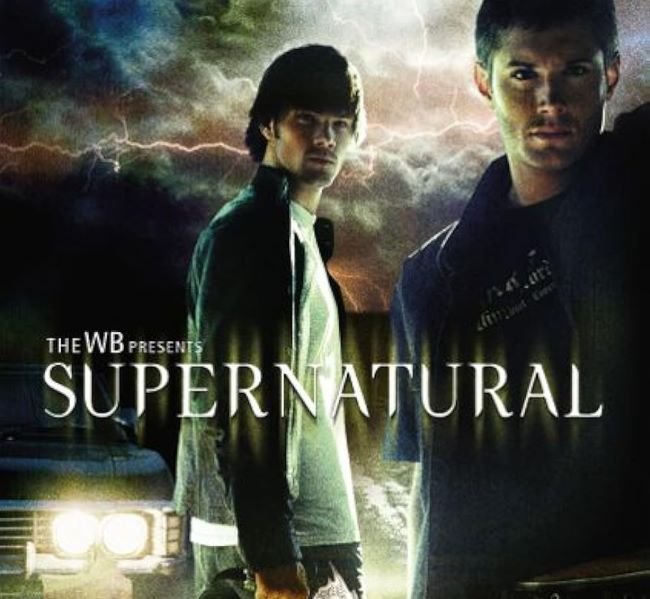
Supernatural Font
Supernatural font has outlasted fifteen seasons and a devoted fandom that measures loyalty in years and tattoos — a weathered, stone-carved display serif font that looks like it was commissioned by whoever inscribed the first protective ward in the first hunter’s journal, its letterforms carrying the specific patina of something that has been around long enough to have seen things that would make most people retire to a different state entirely.
The CW series, which ran from 2005 to 2020, needed title typography that could hold together a show about two brothers hunting monsters in a black 1967 Impala while also navigating the full cosmological hierarchy from hell to heaven, and the ancient-feeling carved serif manages to be simultaneously grand and scrappy enough for exactly that tonal range.
The freely available Supernatural Font brings this timeworn, mythologically-charged register to creative projects.